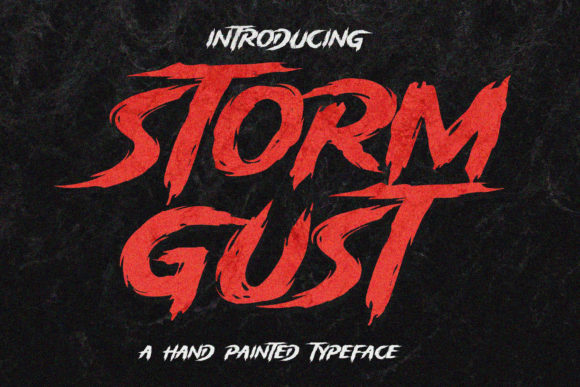
Step into the electrifying realm of urban artistry with Storm Gust Font, a graffiti-infused display font that pulsates with the raw energy of the streets. Unleash your creativity and let your designs reverberate with the vibrant pulse of this captivating font.
With its bold and edgy strokes, Storm Gust Font exudes a rebellious spirit that's perfect for capturing attention and making a lasting impression. Whether you're designing t-shirts, sportswear, logos, advertisements, or any other project that demands a touch of urban flair, this font will elevate your work to new heights.
Immerse yourself in the vibrant world of Storm Gust Font, where imagination reigns supreme. Explore the limitless possibilities of this font and let your designs resonate with the dynamic energy of the streets. Its graffiti-inspired aesthetics will add an electrifying edge to your projects, ensuring they stand out from the mundane and commonplace.
Don't settle for ordinary fonts that blend into the background. Embrace the audacity of Storm Gust Font and watch as your designs transform into captivating works of art. This font is not just a collection of letters; it's an expression of individuality, a reflection of your unique style.
So, dive into the exhilarating world of Storm Gust Font and let your creativity soar. Let your designs pulsate with the vibrant energy of urban art, and leave an indelible mark on the world of visual communication. Unleash the power of Storm Gust Font today and witness the transformation of your designs into masterpieces that captivate and inspire.